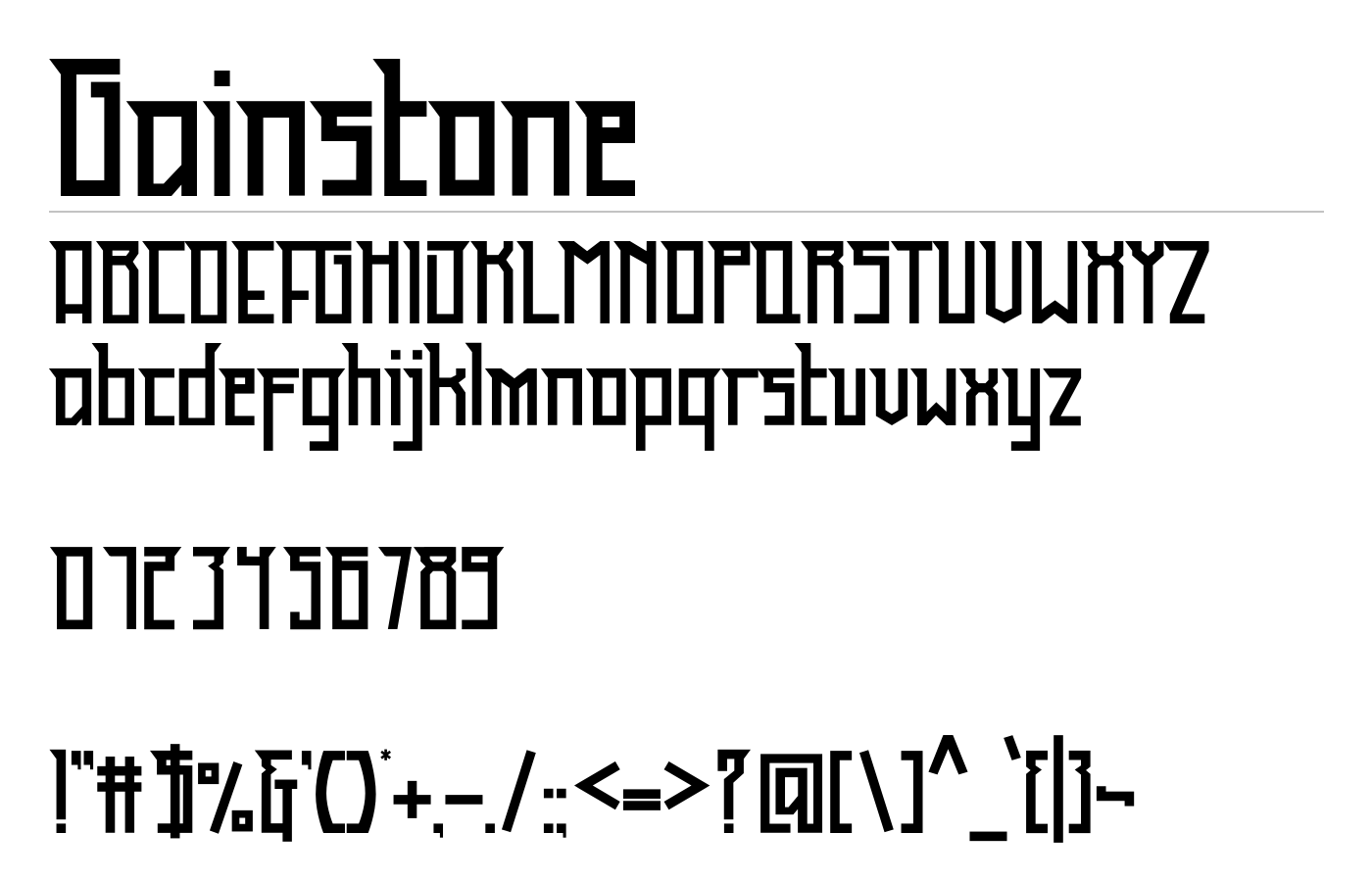
Gainstone is a distinctive, geometric sans serif font characterized by its tall, narrow letterforms and sharp, angular edges that create a modern, industrial feel. Its consistent stroke weight and compact spacing give it a bold, futuristic personality, making it ideal for attention-grabbing headlines, branding in tech or gaming, and display uses where a strong, edgy style is desired.
Gainstone Font
About Gainstone Font